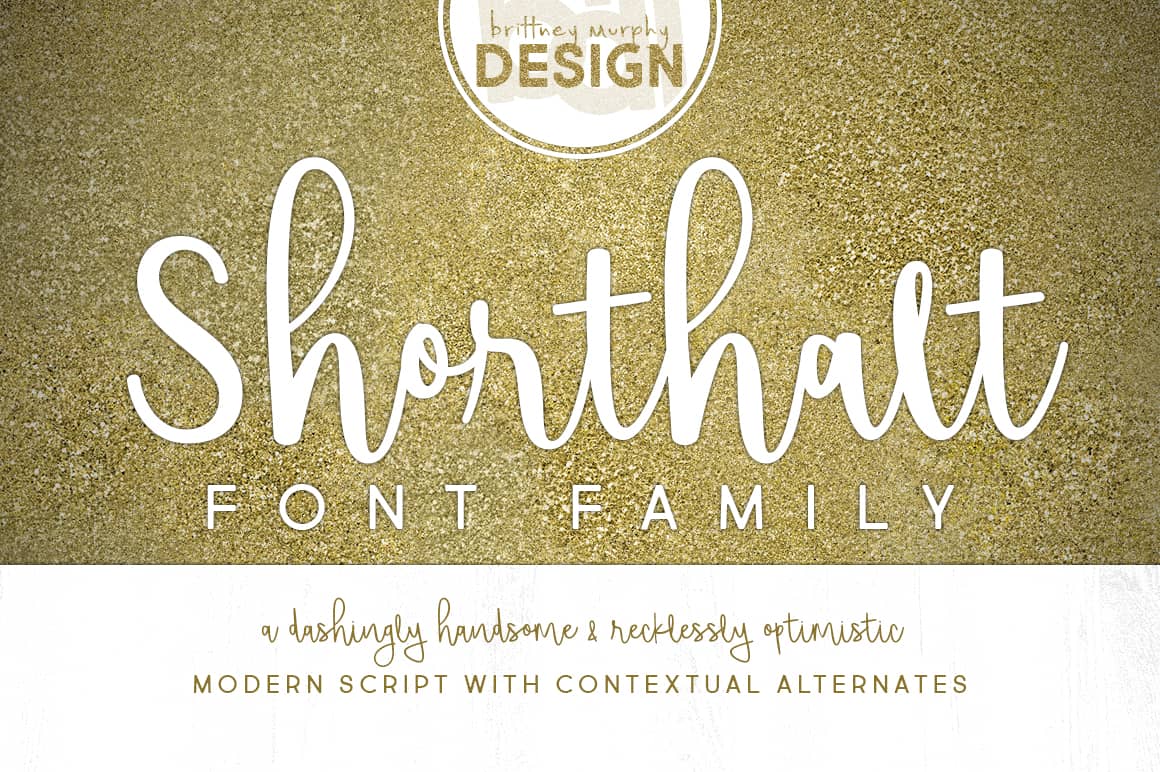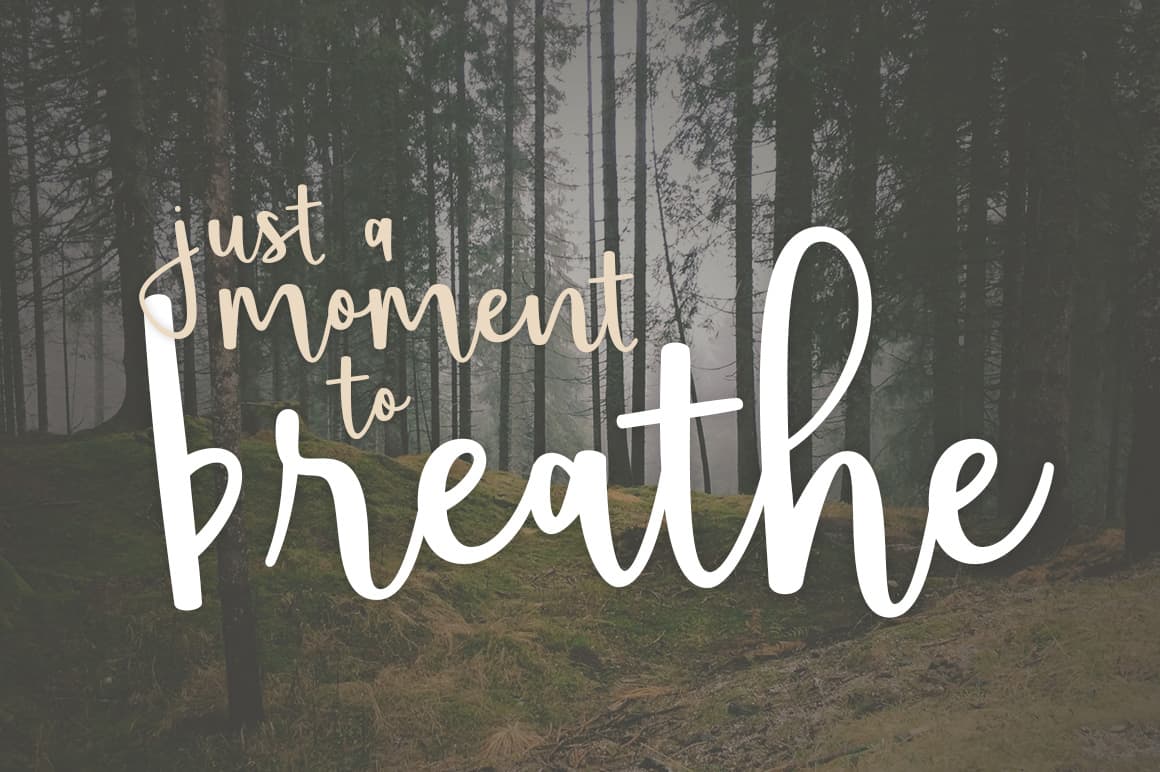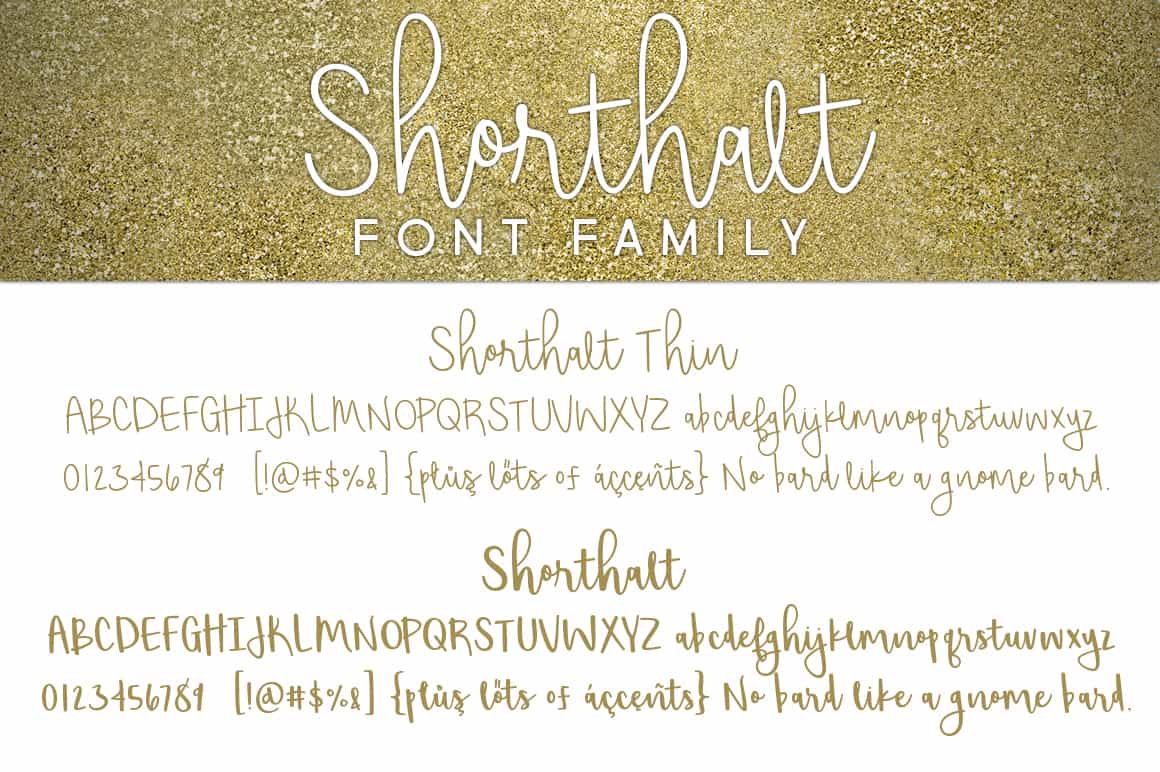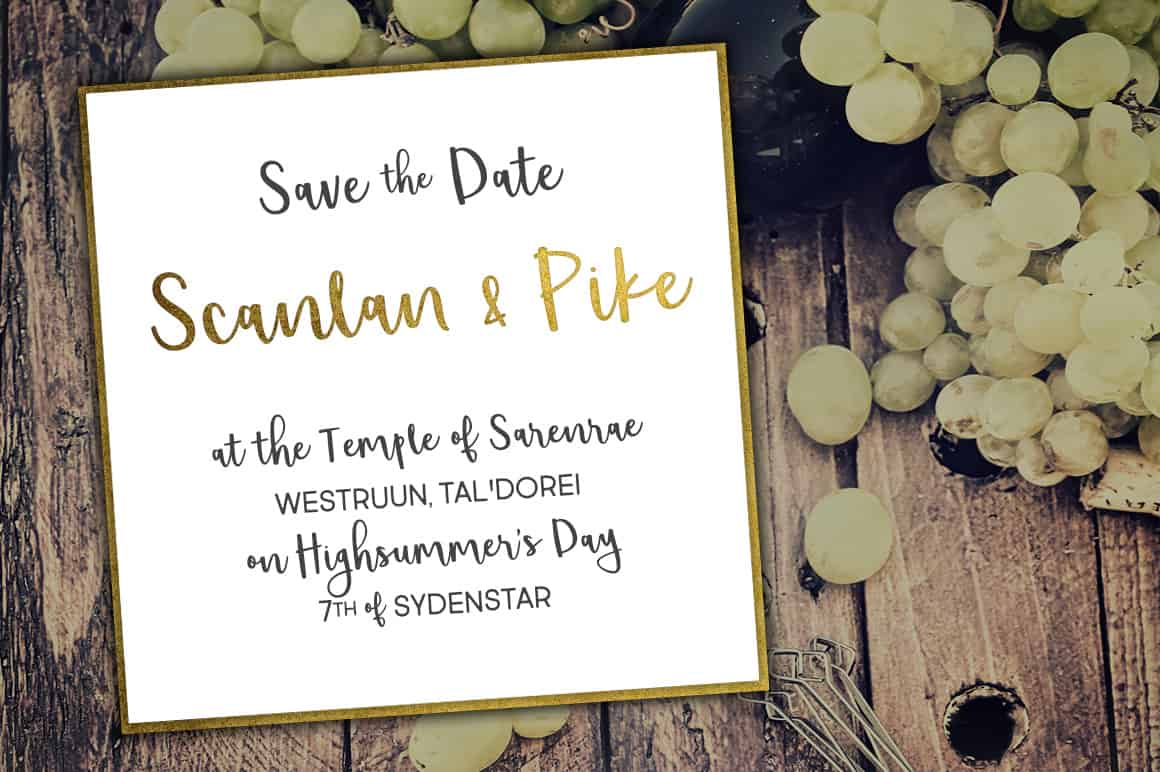
Shorthalt is an open type script with ligatures and contextual alternates. It has 538 characters, including lots of accented letters.
This font family includes two versions, regular and thin.